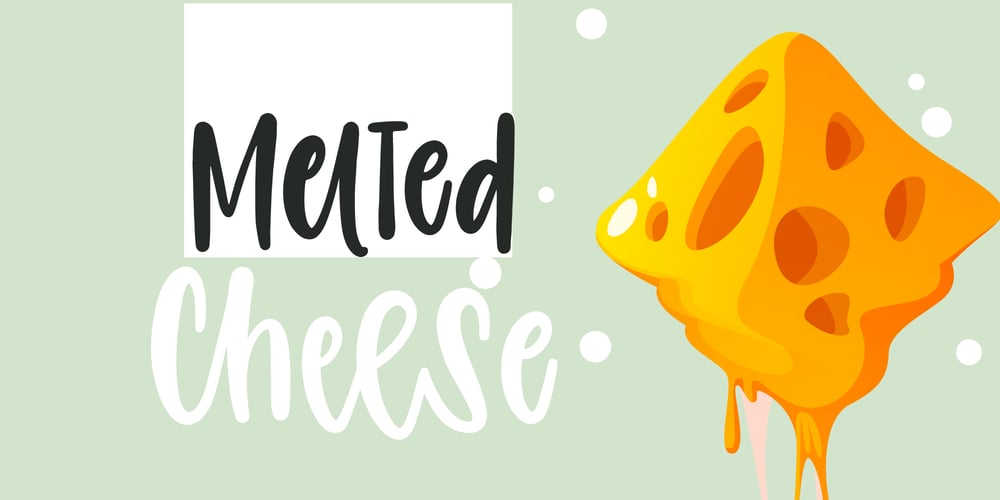
Melted Cheese Font Family was designed by Ghazi and published by Asd Studio. Melted Cheese contains 1 styles and family package options. Introducing Melted Cheese, created by Asd Studio is a quirky and relaxed handwritten font. Whatever the topic, this font will be a wonderful asset to your font library,as it has the potential to enhance any creation.What’s Included?:: Uppercase & Lowercase:: Numbers & Punctuation:: Multilingual SupportEnjoy our font, thank you.